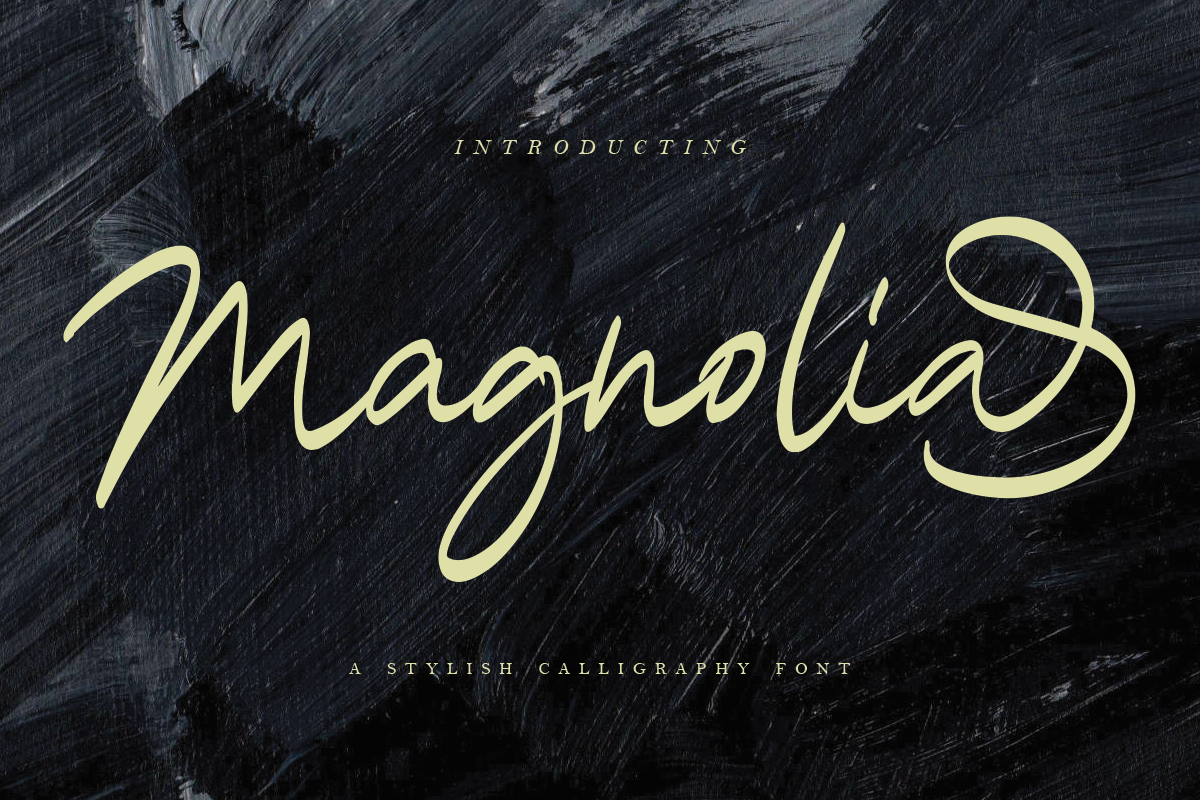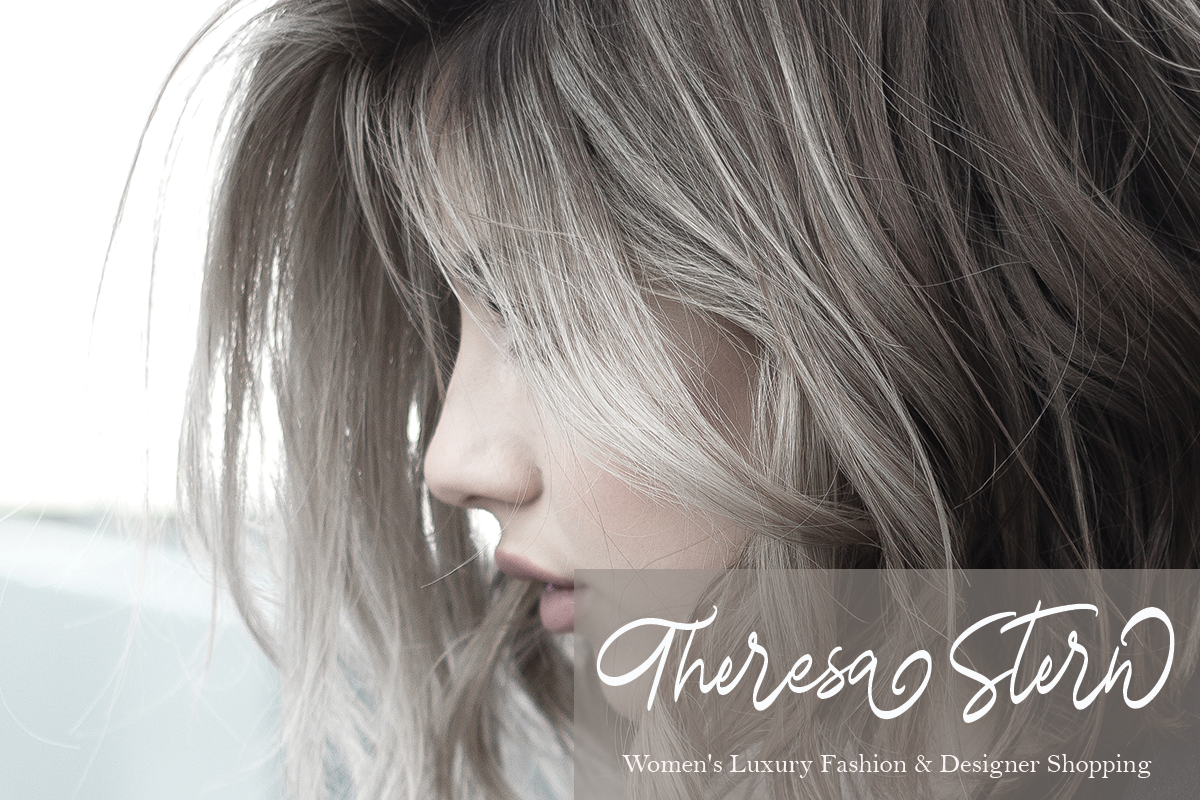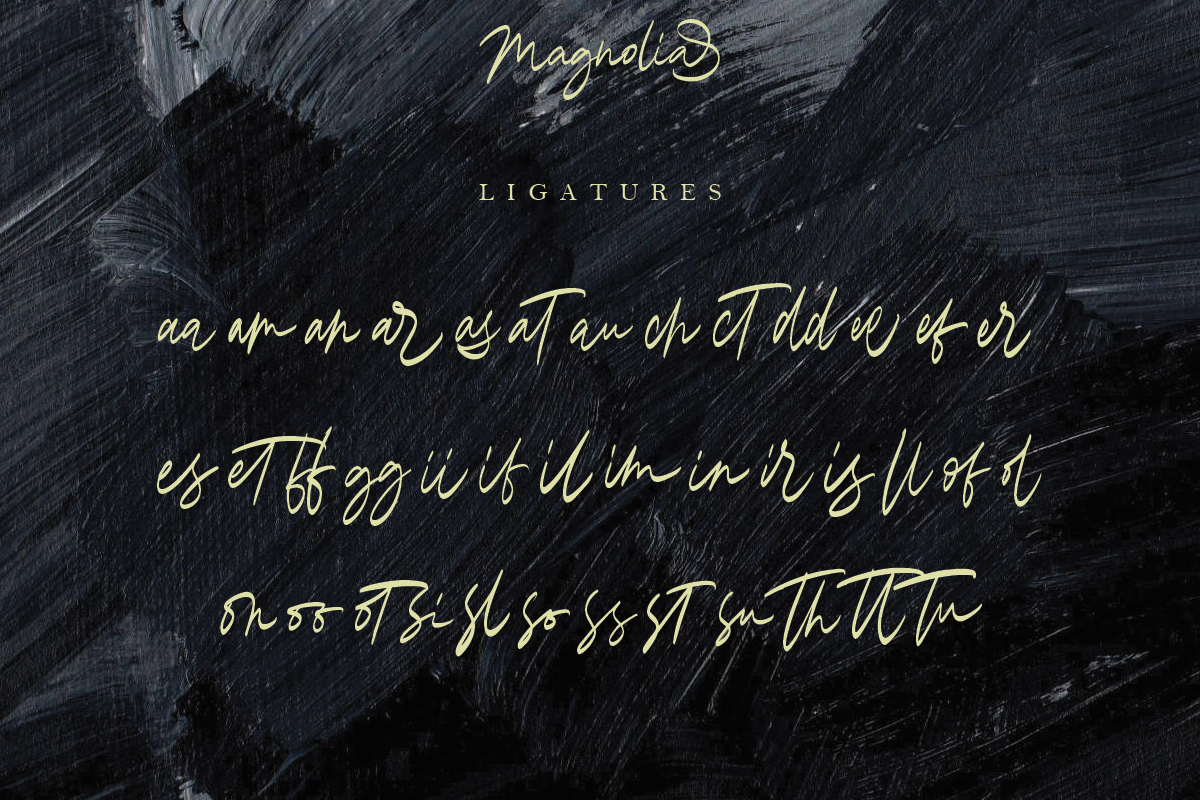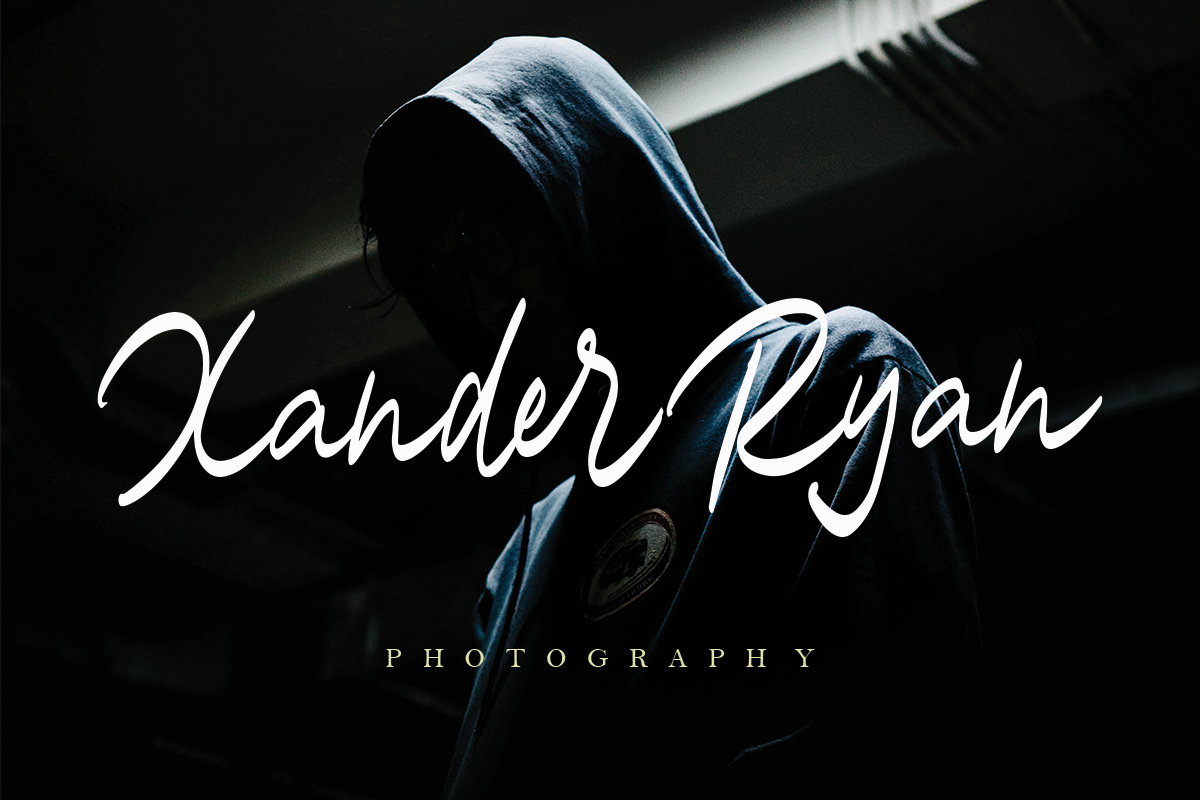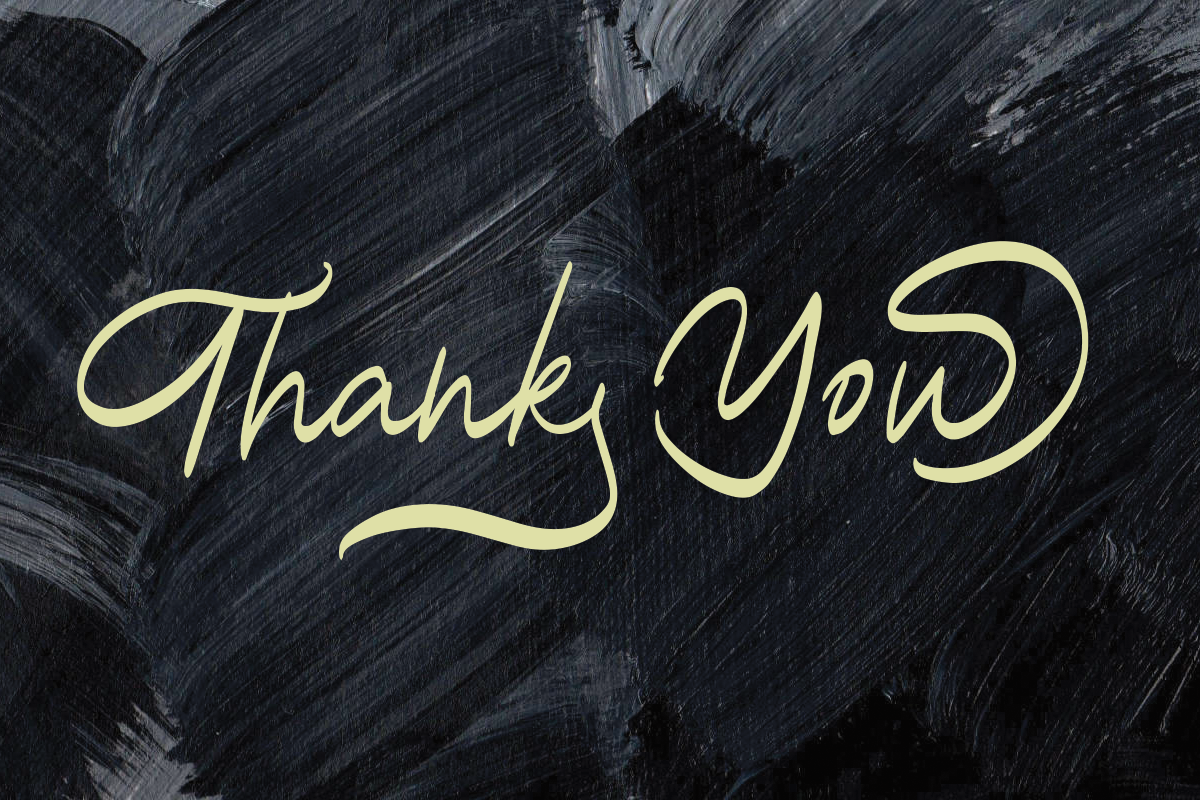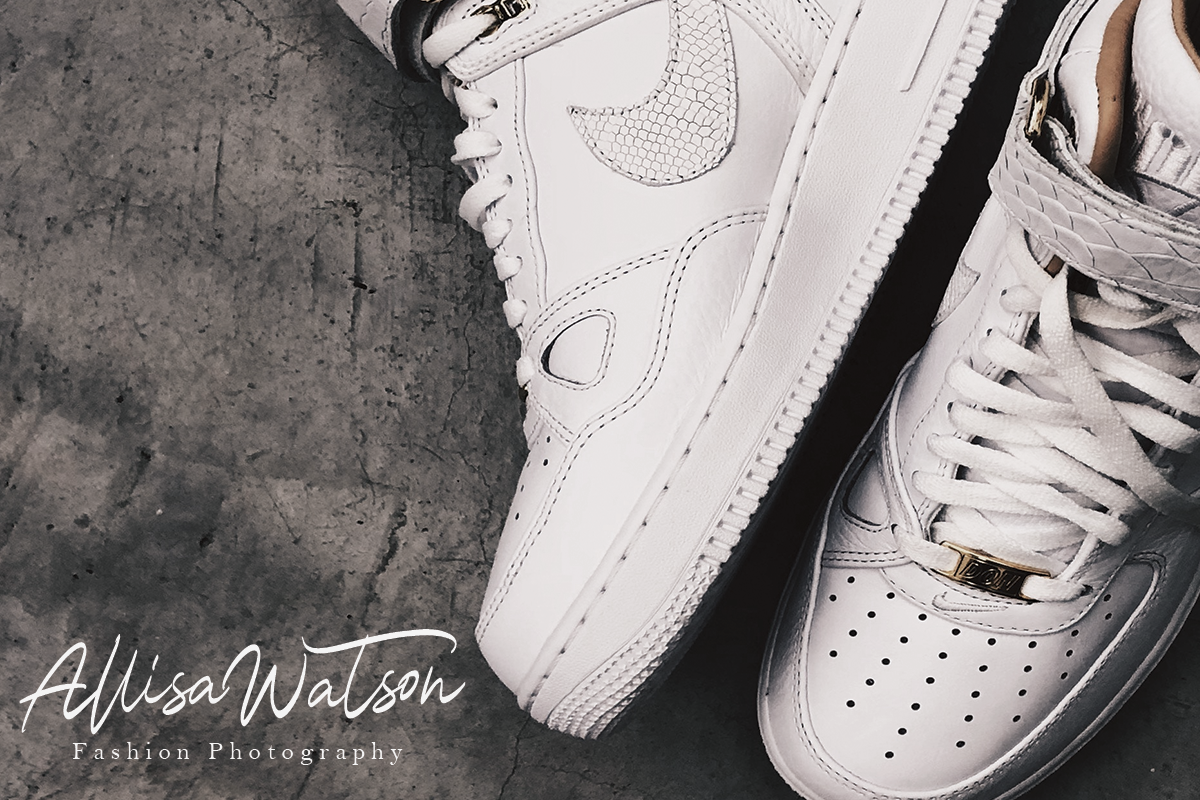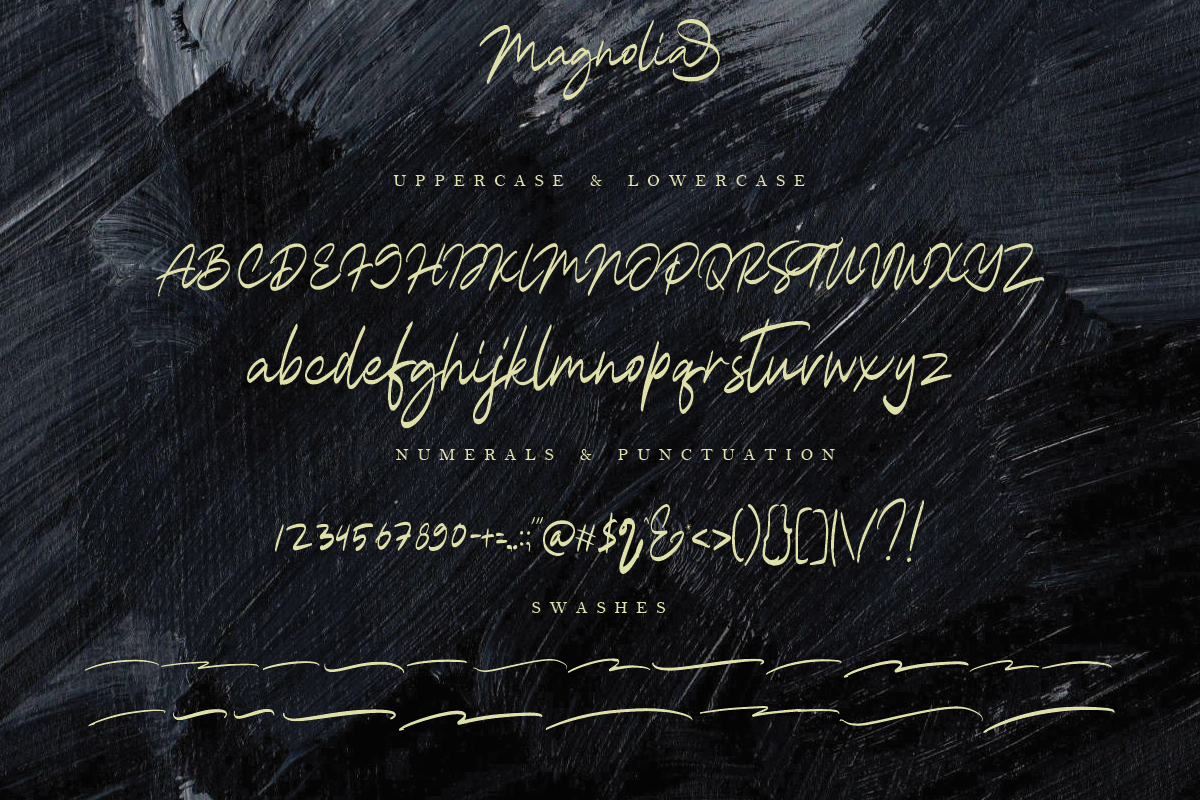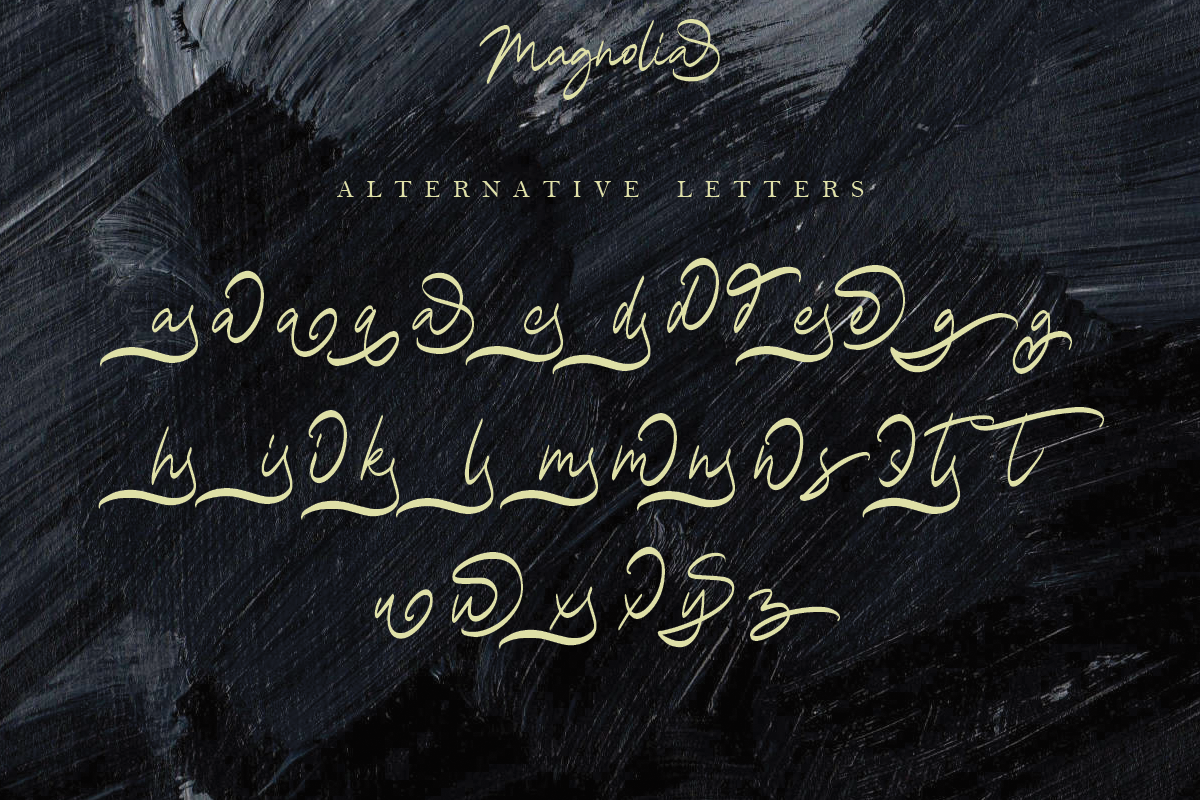
Magnolia Calligraphy Font
INTRODUCING: Magnolia Font Calligraphy !! Flowing my handwriting font and style of writing. With a quick sweep and distinctive style, Magnolia Calligraphy is perfect for branding projects, logo design, product packaging etc. plus an ideal ligature & Stylish Alternate for adjusting your project. or just as a text requirement for any background image.
Magnolia multilingual support:
áäåãéèëìïîòöôøùüAÀÁÂÃÄÅEÈÉÊËIÌÍÎÏNÑOÒÓÔÕÖUÙÜÚÛYÝŸŸ
Magnolia font ligature:
aa am an ar as at au ch ct dd ee ef er es et ff gg ii if il im in is ll of ol on oo ot si sl so ss st su th tt tu